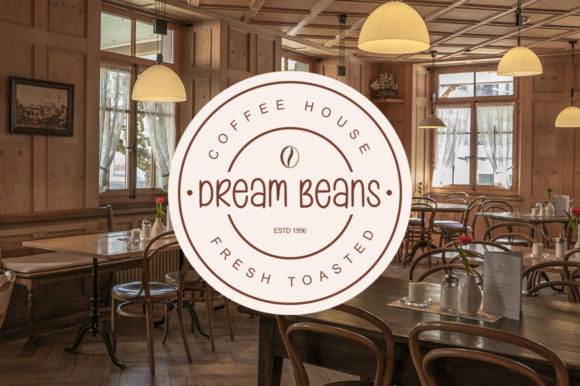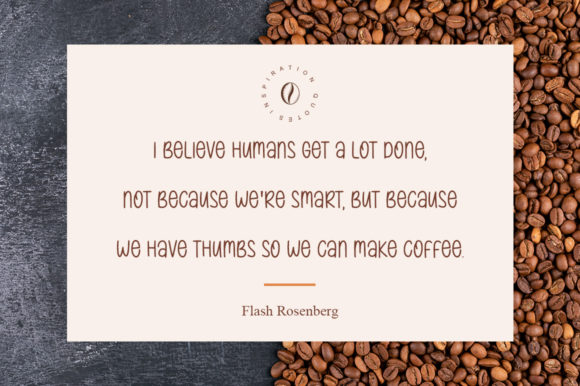
Beans & Break Font
db-ku.com - Script & Handwritten -- Beans & Break is a cute handwritten font. Get creative with its childlike playfulness, and use it to brighten up any kids and school project!